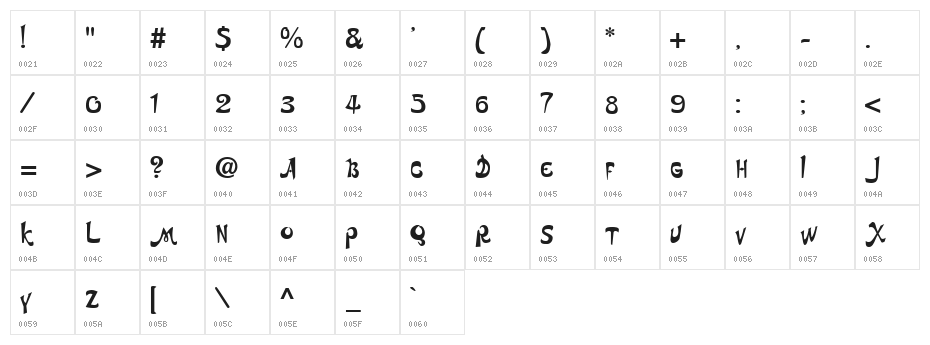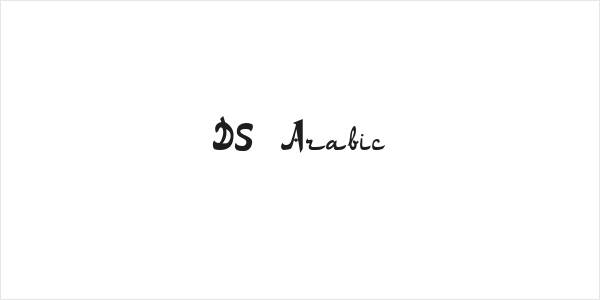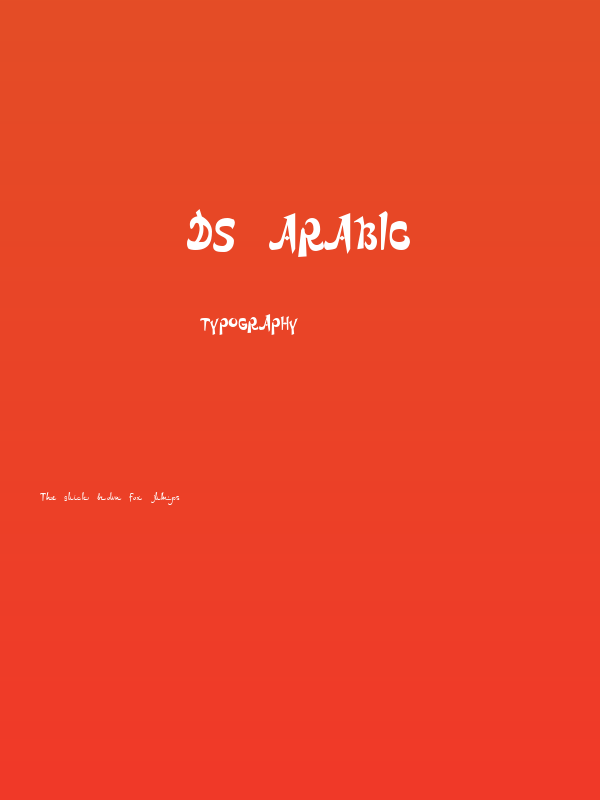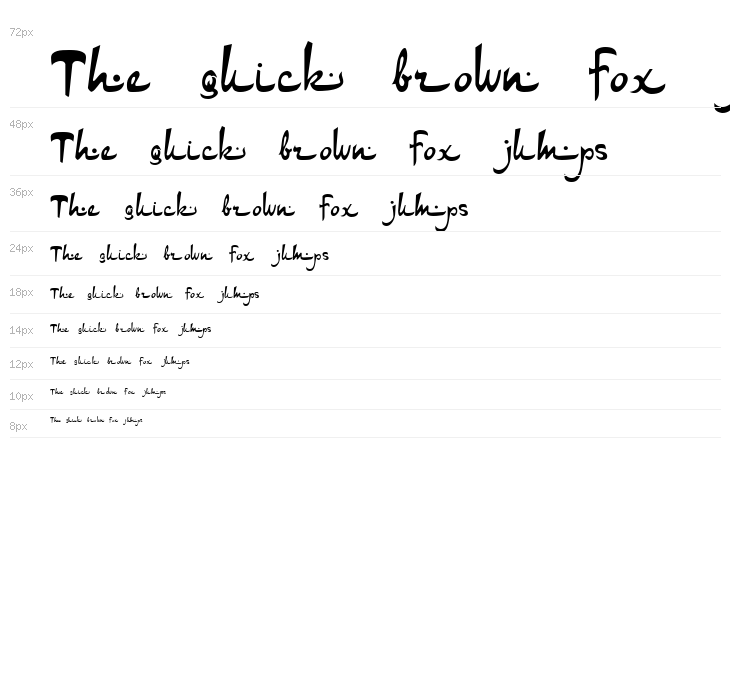
DS Arabic Font
DS Arabic Description
This font features a unique blend of traditional and modern elements, characterized by its bold, flowing strokes and distinctive curves. The uppercase letters exhibit a strong presence with their thick lines and artistic flair, reminiscent of calligraphic styles. The lowercase letters maintain a consistent flow, with some characters featuring elegant loops and swirls. Numbers are bold and clear, ensuring readability while maintaining the overall aesthetic. Special characters are creatively designed, adding to the font's decorative appeal. This font is ideal for projects that require a touch of elegance and creativity.